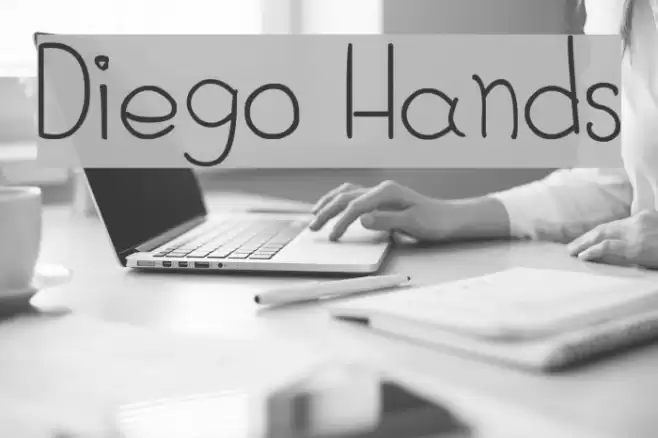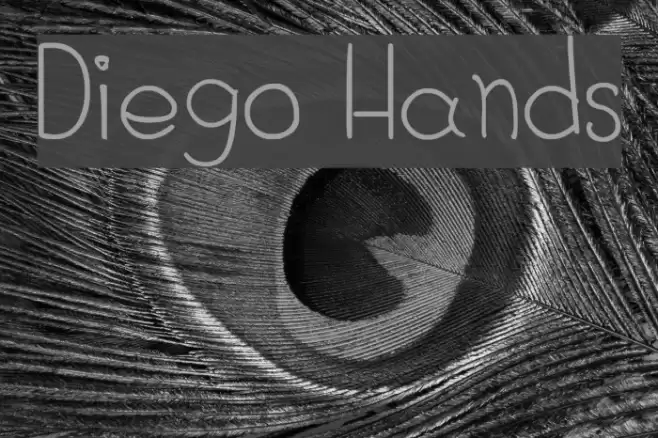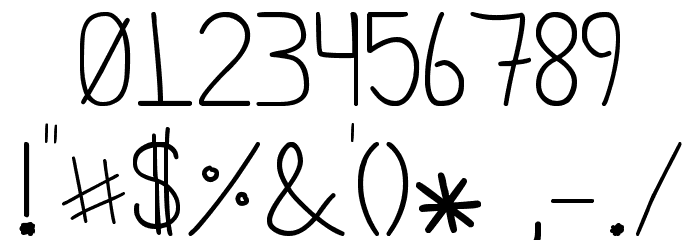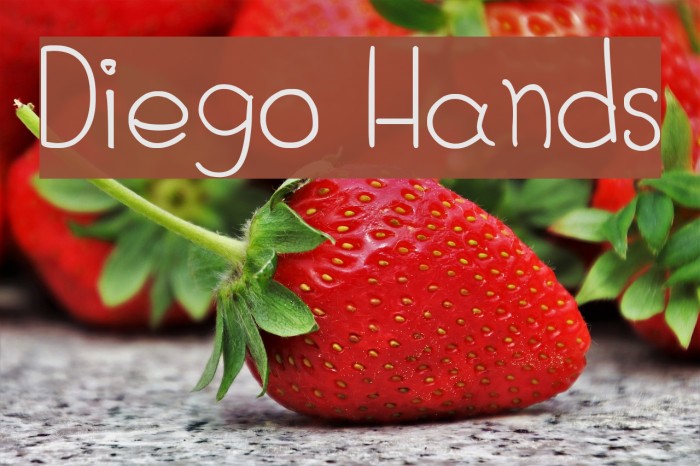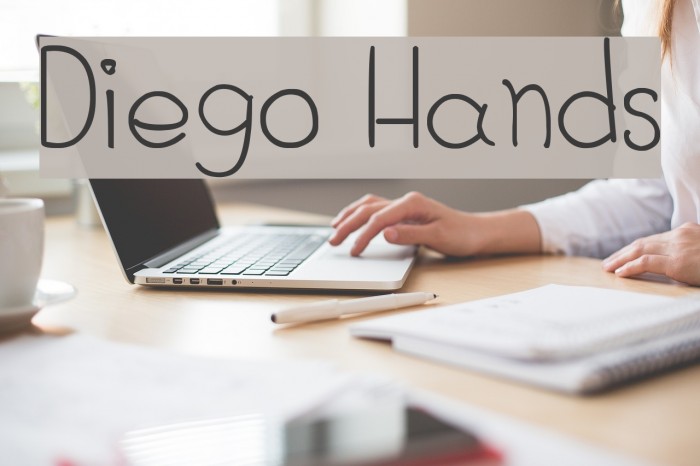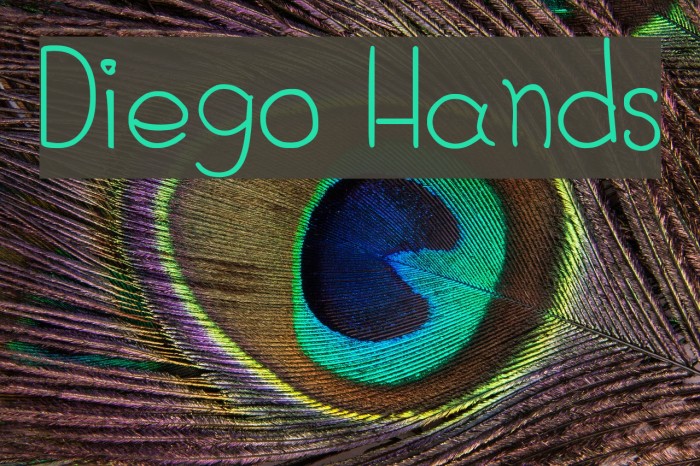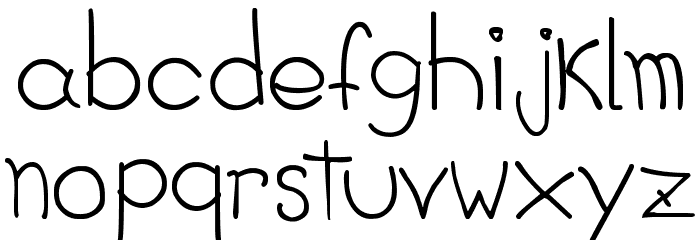
Diego Hands Font
Diego Hands Description
This font features a playful, handwritten style with a casual and friendly appearance. The characters are slightly irregular, giving it a personal touch that mimics natural handwriting. The uppercase letters are tall and narrow, while the lowercase letters maintain a consistent flow with rounded edges. The numerals and special characters follow the same informal style, making them blend seamlessly with the alphabet. This font is ideal for projects that require a human touch, such as invitations, greeting cards, or personal branding. Its unique charm lies in its simplicity and the organic feel it brings to any design.
A playful, handwritten font with a casual and friendly appearance from Handwritten fonts.
- Proposed Projects: Ideal for invitations, greeting cards, personal branding, and creative projects.
- Overall Style: Casual
- Use Case: Headlines, Logos, Invitations